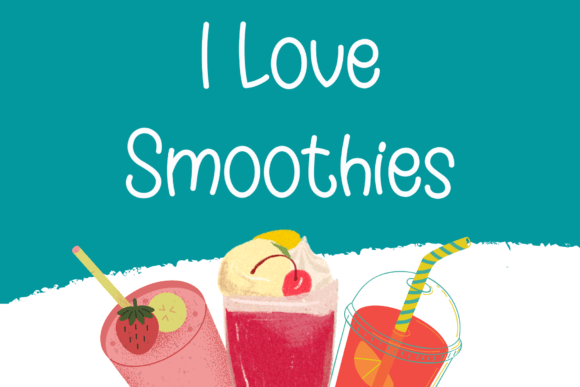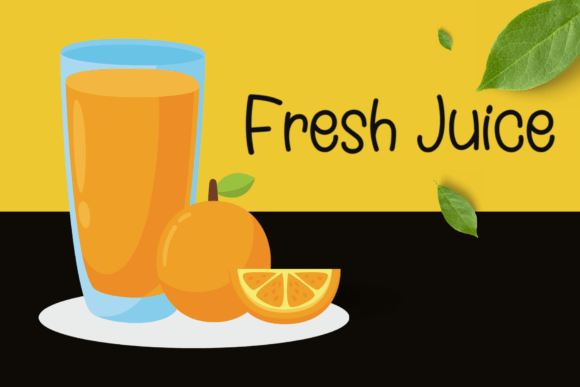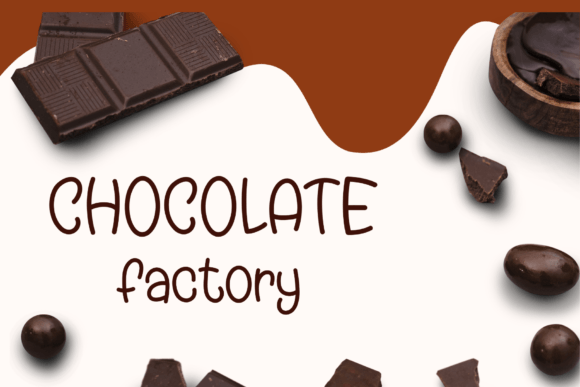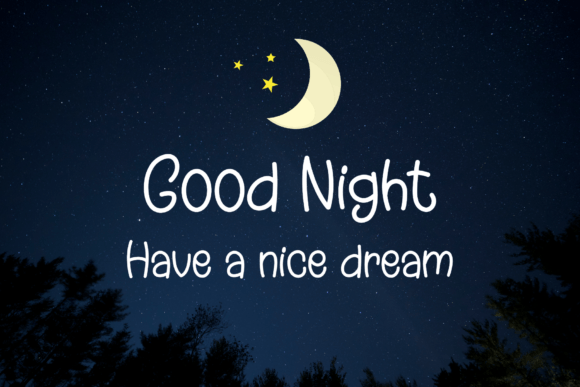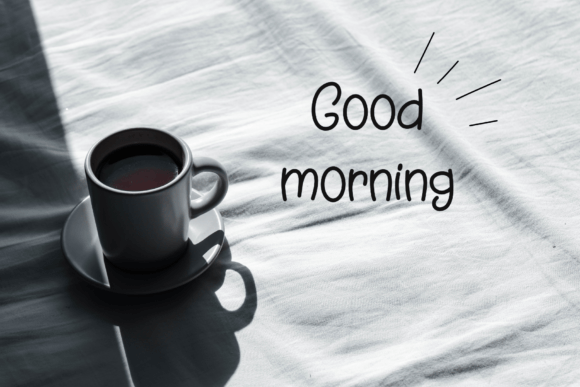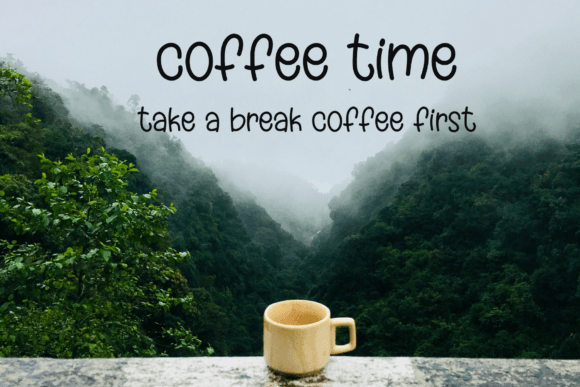
The Perfect Blend: Unlocking the Power of Fresh Juice Font
You know that feeling when a design idea just pops into your head and you can’t wait to bring it to life? The thrill of creation, the rush of excitement – it’s what makes being a designer so magical. And, let’s be honest, sometimes all it takes is the right font to make that idea truly shine. For those moments, we’ve got just the thing: Fresh Juice Font, a delightful handwritten font that’s guaranteed to add a dash of grooviness to any project.
This charming font is perfect for designing everything from T-shirts and tote bags to wedding invitations and logos. Its unique, handwritten style makes it stand out from the crowd and adds a personal touch to any design. As a designer, you know how valuable it is to have a versatile font in your toolkit – Fresh Juice Font is definitely one to add to your collection.
Fresh Juice Font Key Features
- Font Family: Fresh Juice Font is a modern sans-serif font family.
- Unique Characteristics: Features a unique blend of geometric and organic shapes, resulting in a clean and modern aesthetic.
- Character Count: Includes over 800 glyphs, including international characters and symbols.
Fresh Juice Font Review
Overall, I think Fresh Juice Font has some great qualities that make it a decent choice for certain projects, but it’s not without its limitations. Let’s dive in and see what I mean.
- Fun and playful feel: Fresh Juice Font has a lighthearted, energetic vibe that’s perfect for projects like food blogs, kids’ websites, or social media campaigns.
- Clean lines and simple shapes: The font’s design is easy to read and understand, even at smaller sizes.
- Good for headings: The font’s bold and playful feel makes it ideal for headings and titles.
- Limited versatility: Fresh Juice Font might not be the best choice for more formal or professional projects.
- Not ideal for body text: While the font works well for headings, it can be a bit too playful and distracting for large blocks of body text.
- Lack of scalability: At very small sizes, the font can become difficult to read and may lose its playful feel.
While Fresh Juice Font has its limitations, it’s still a great choice for projects that need a fun and playful feel. Just be sure to use it wisely and in the right context.
For optimal use, pair Fresh Juice Font with bold or italic fonts to create contrast and visual interest. Use it for headings and titles to make a statement. Common use cases include logo design, branding, and typography-based graphics.
Getting the Most Out of Fresh Juice Font
To get the most out of Fresh Juice Font, experiment with different font sizes, colors, and combinations to find the perfect look for your design. Don’t be afraid to push the boundaries of traditional typography and try new things!